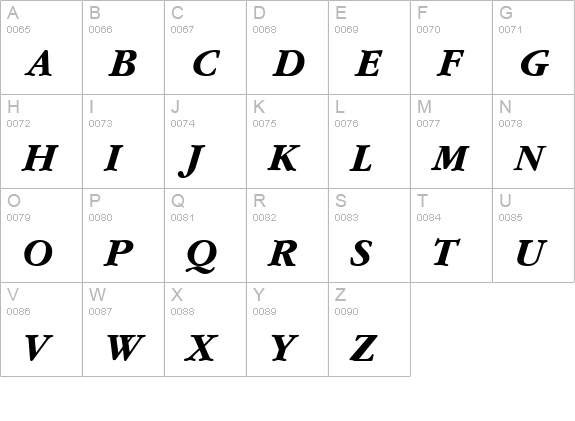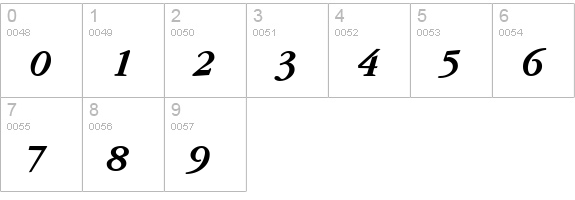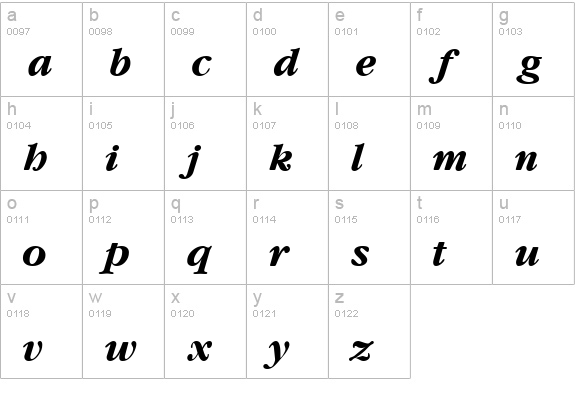
Garnet fed kursiv Font Details
Introducing Garnet, a sleek and sophisticated font that will elevate your designs with its elegant and modern aesthetic. The Garnet font exudes a sense of luxury and professionalism, making it perfect for projects that require a touch of class. Its stylish curves and clean lines give your text a refined look that is sure to impress. What's even better is that Garnet is available for free download at FontsMarket.com! This means you can easily add this stunning font to your collection without any cost. Whether you're working on a branding project, logo design, or any other creative endeavor, Garnet is the perfect choice to enhance your work with its distinctive flair. Don't miss out on the opportunity to elevate your designs with Garnet. Download this exquisite font for free today at FontsMarket.com and take your projects to the next level!